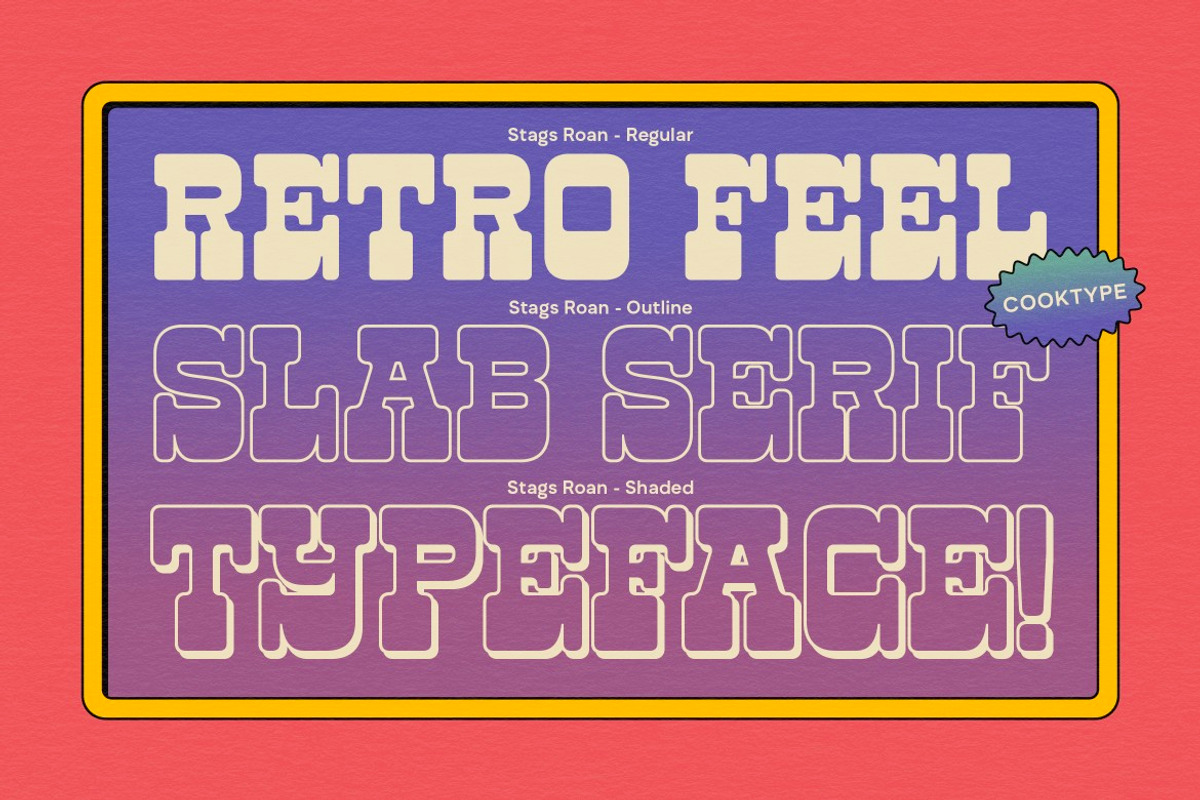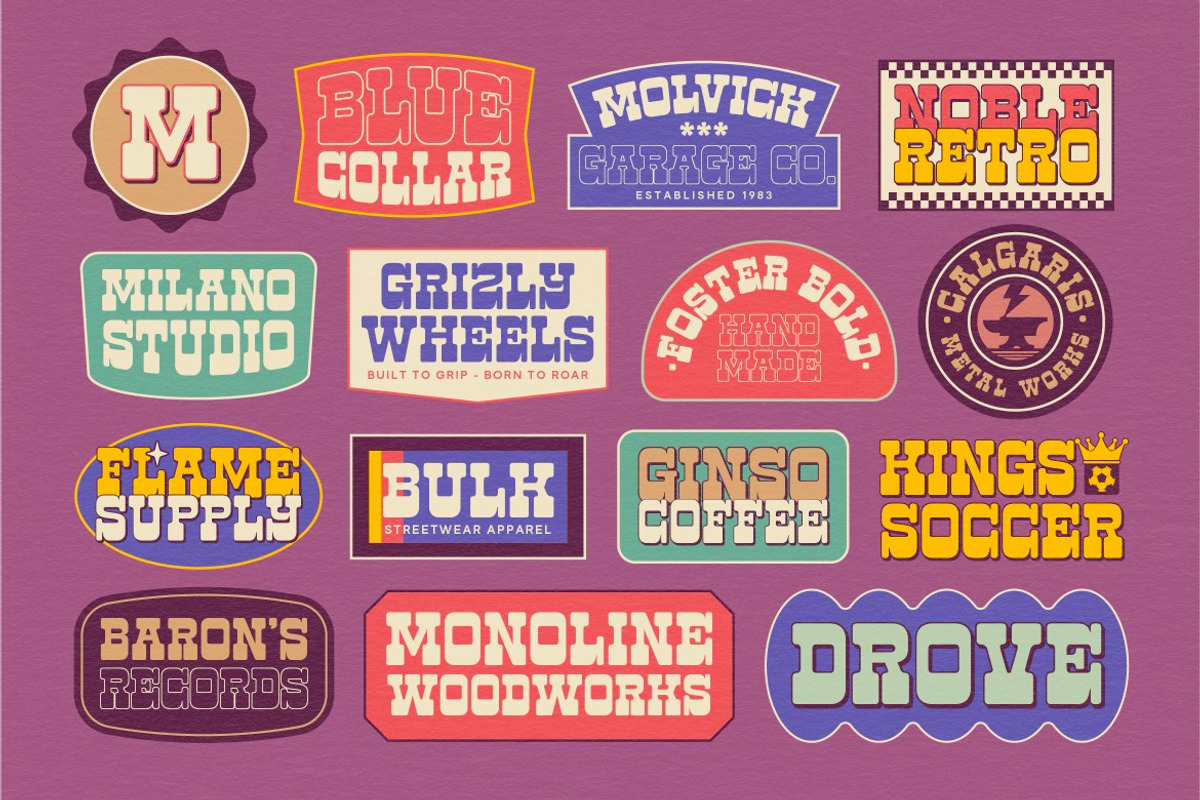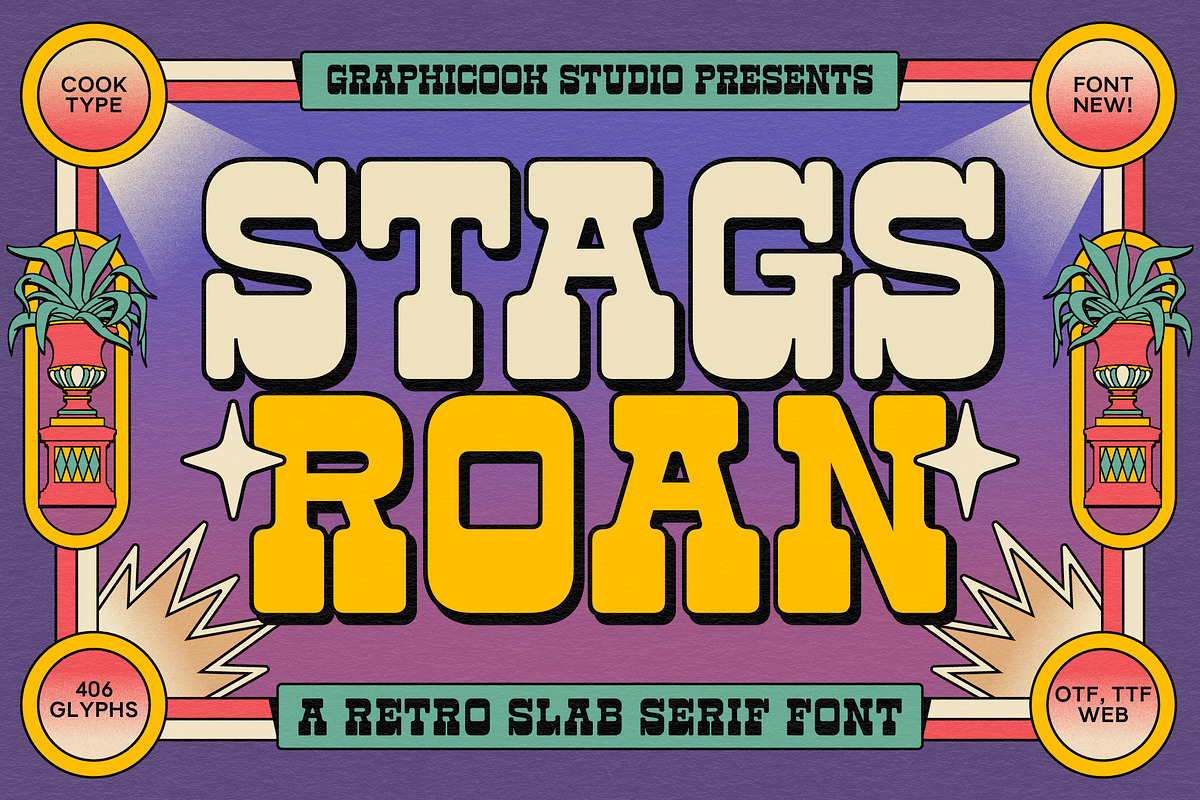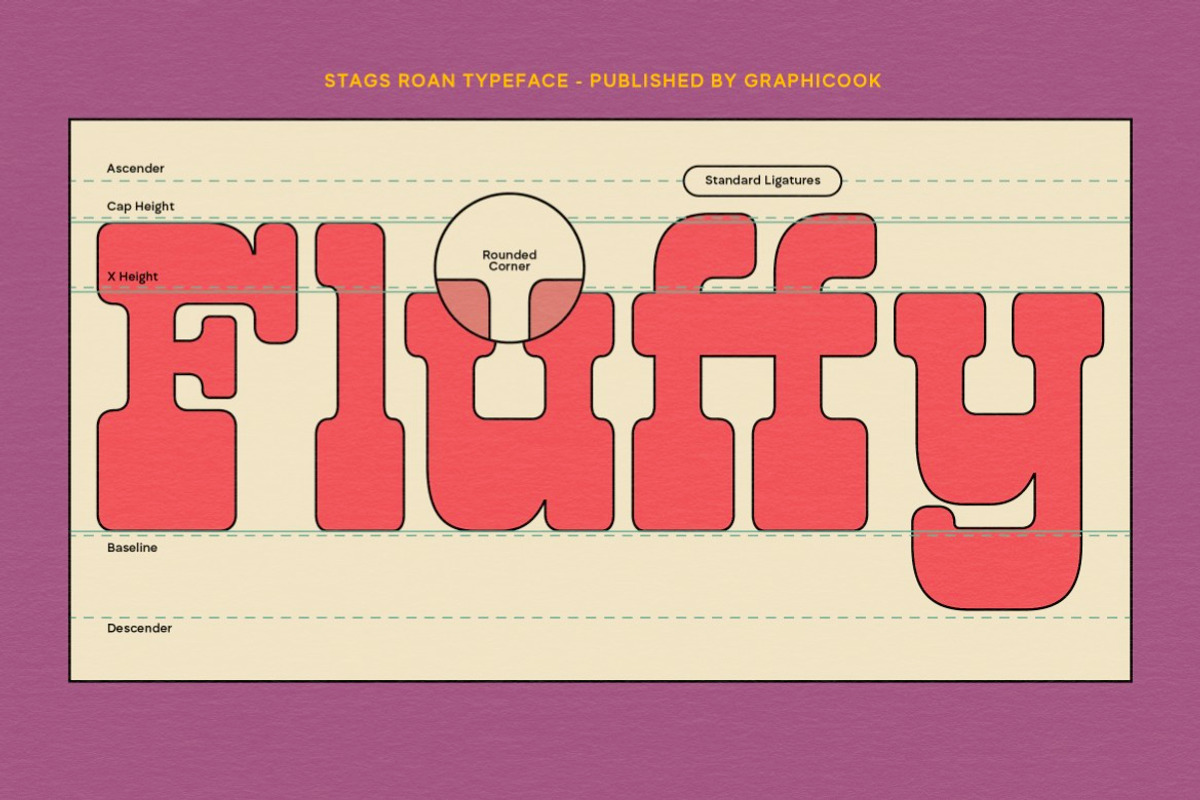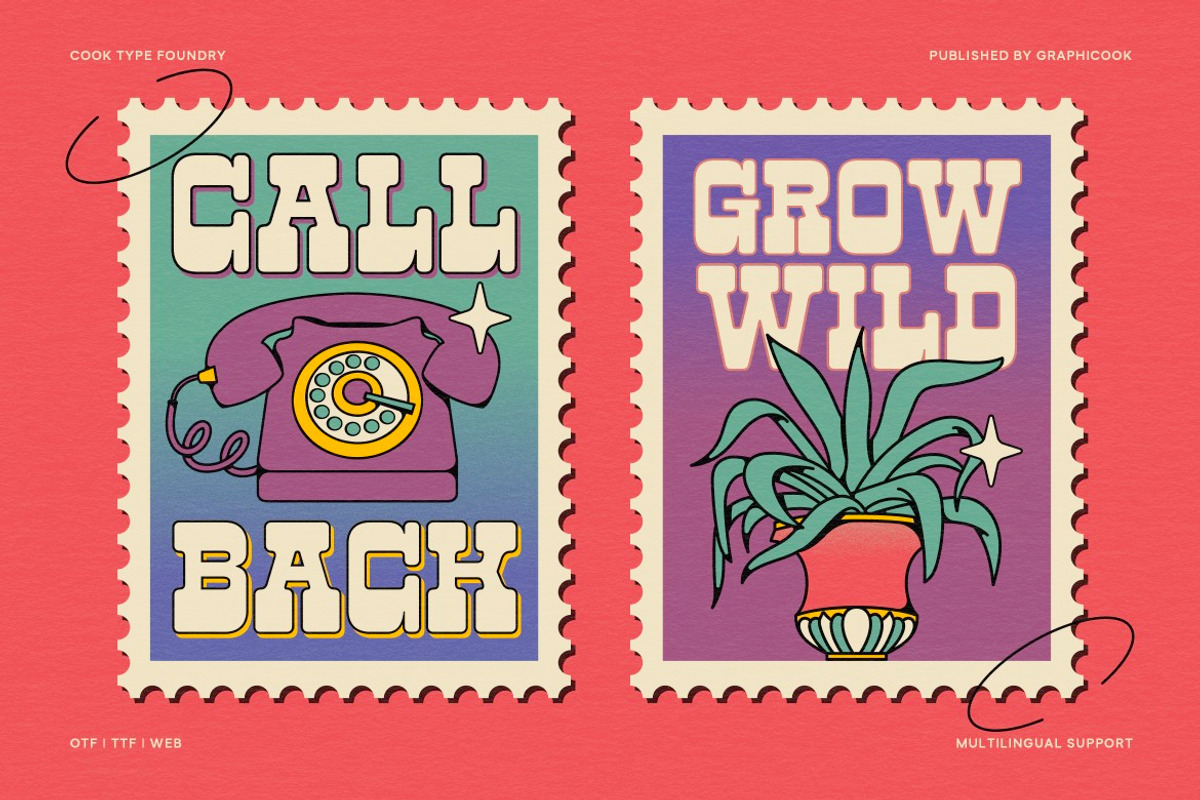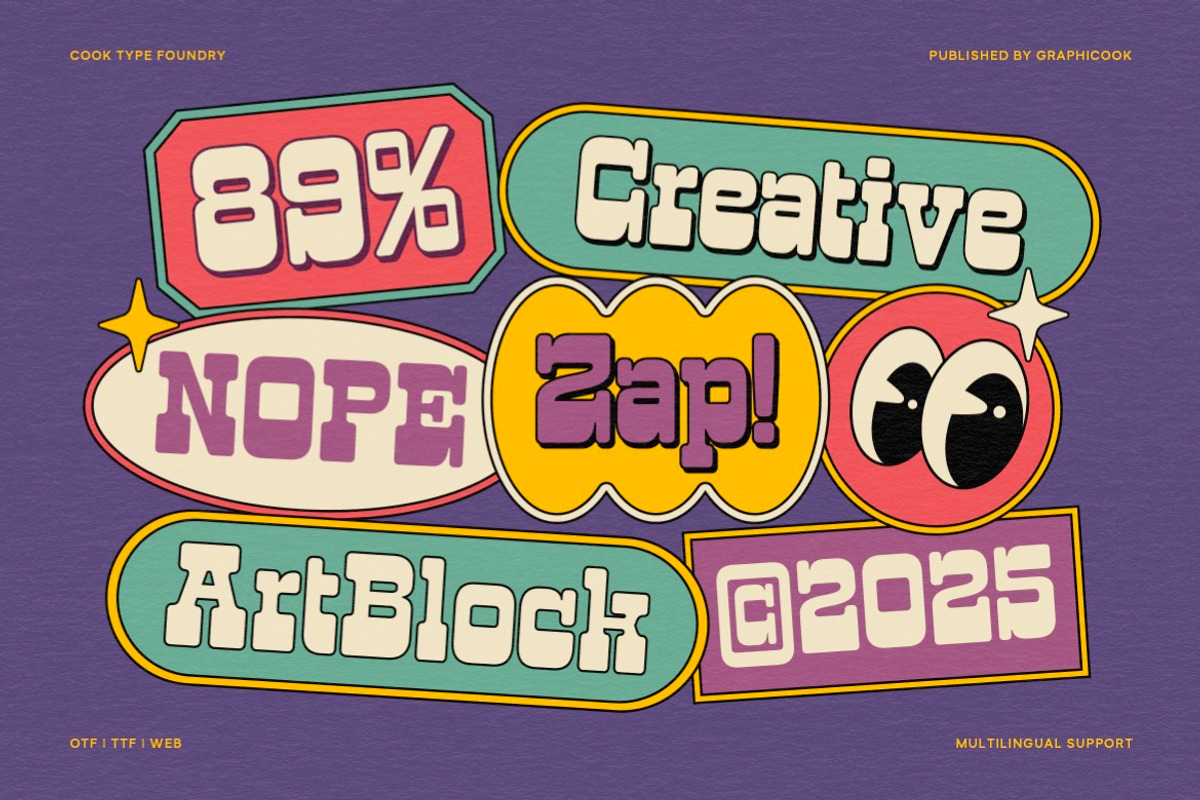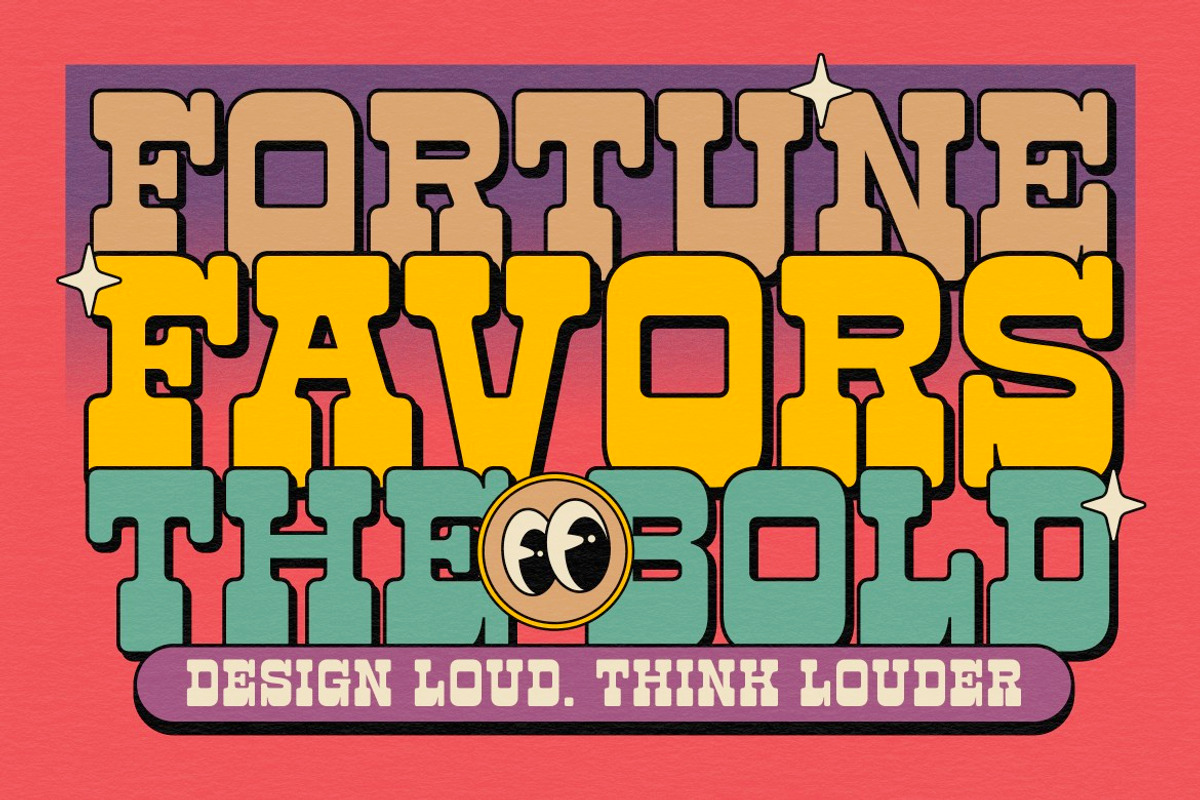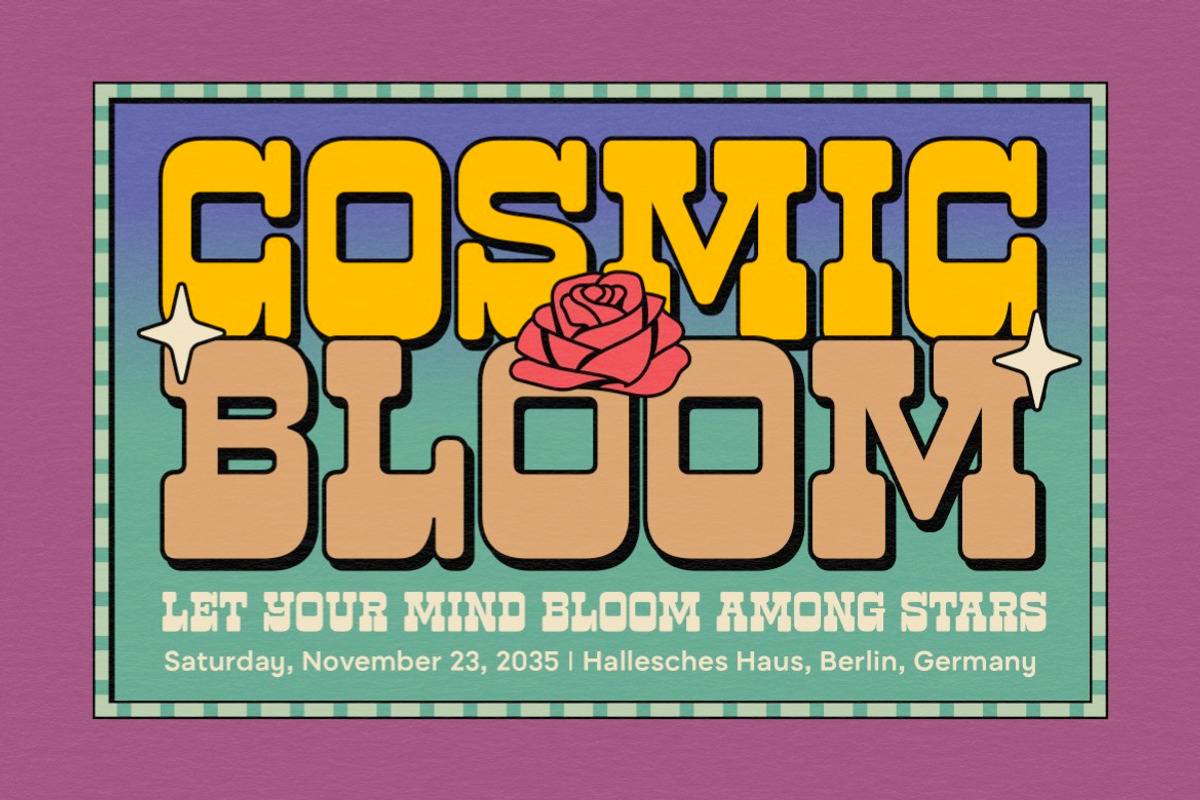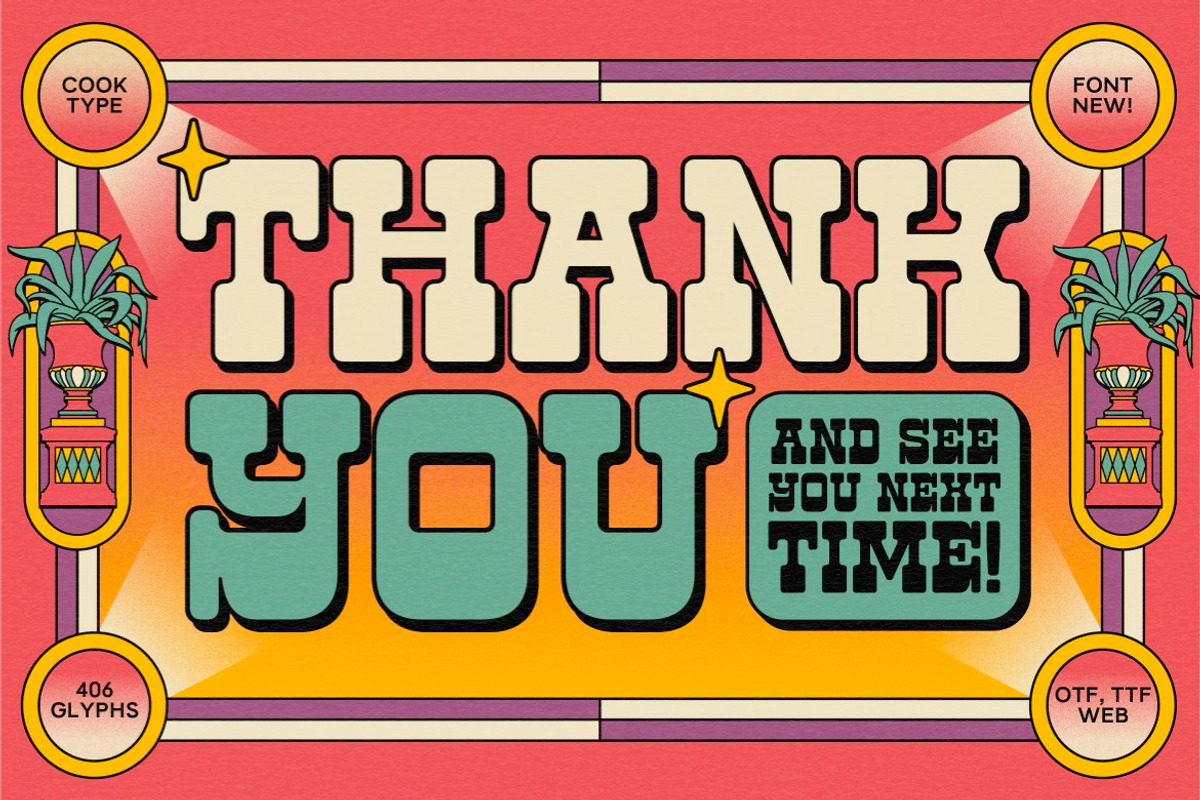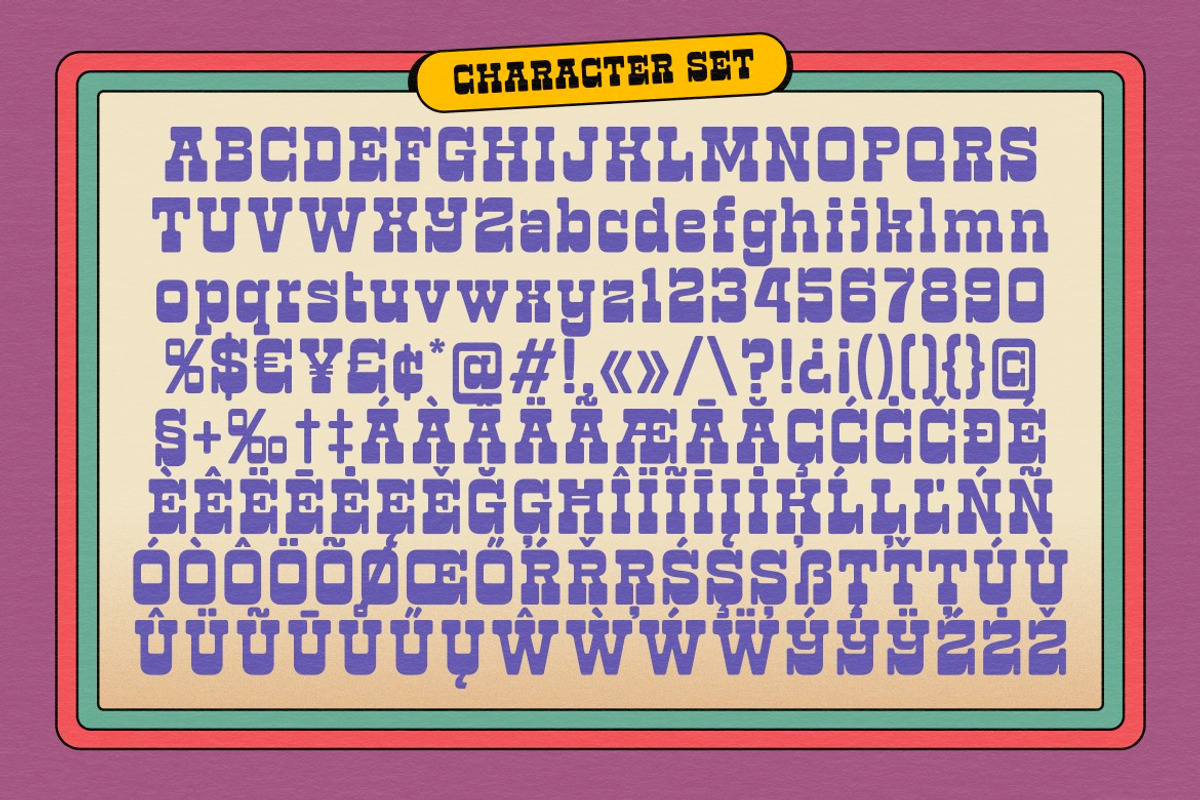
Stags Roan
Stags Roan includes three distinct styles: Regular, Outline, and Shaded. The Regular style is solid and timeless, the Outline is clean and modern, and the Shaded style adds depth and vintage character. Together, these styles are perfect for posters, signage, or any creative project aiming for a nostalgic and versatile aesthetic.
It is perfect for headlines, logotypes, magazines, packaging, quotes, movies, games, cover albums, book covers, and flyers, it's a perfect solution for creating eye-catching designs that stand out in any context.